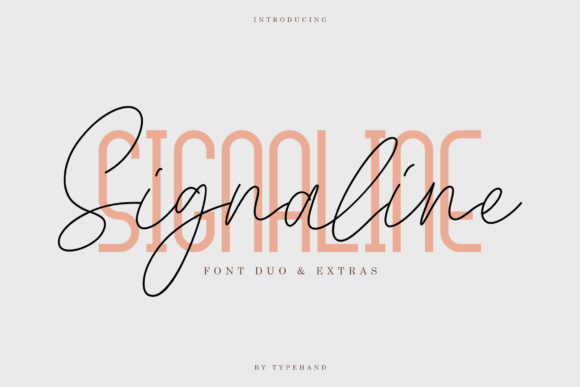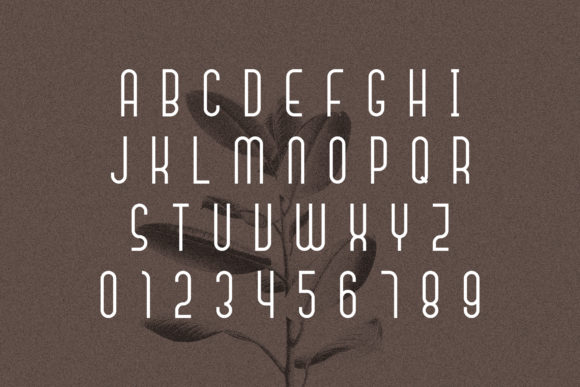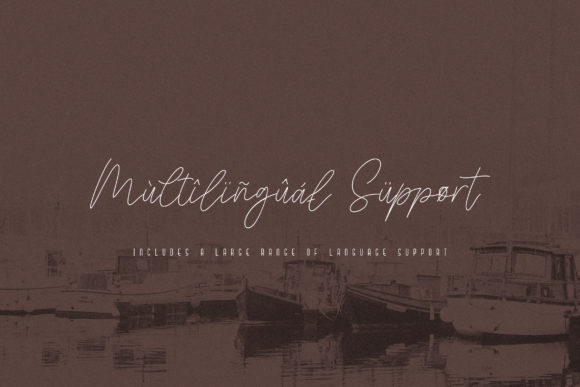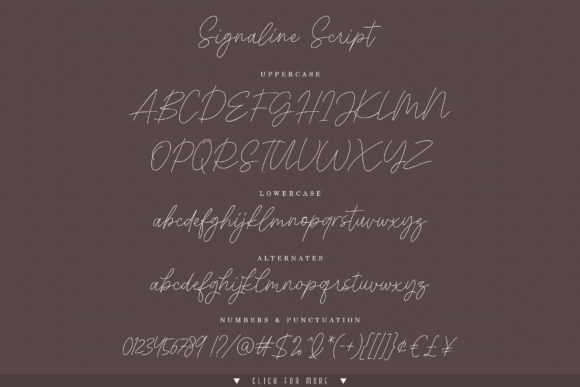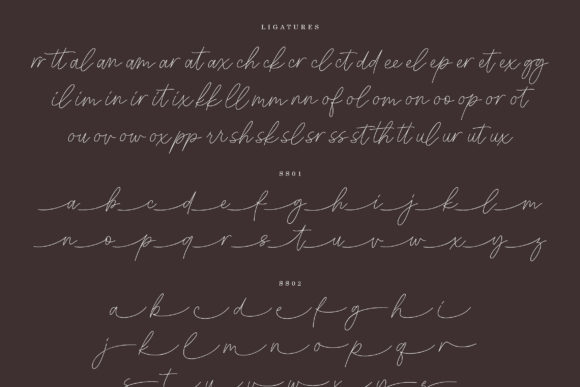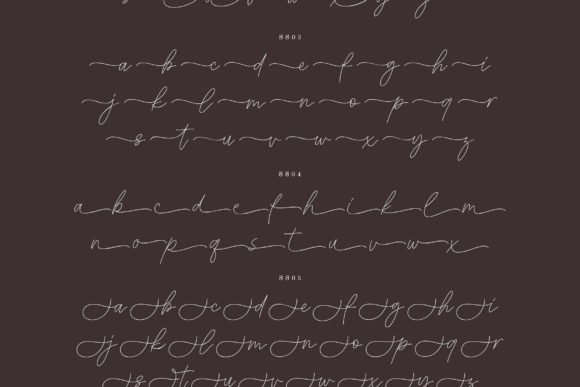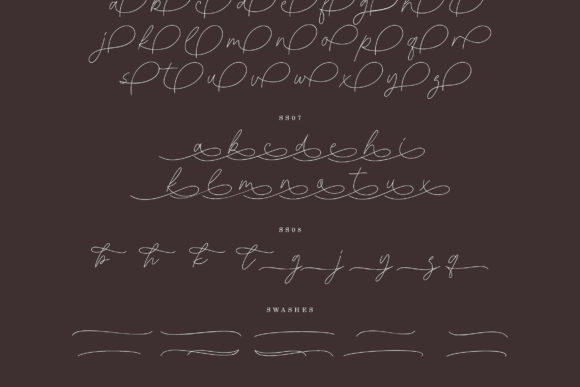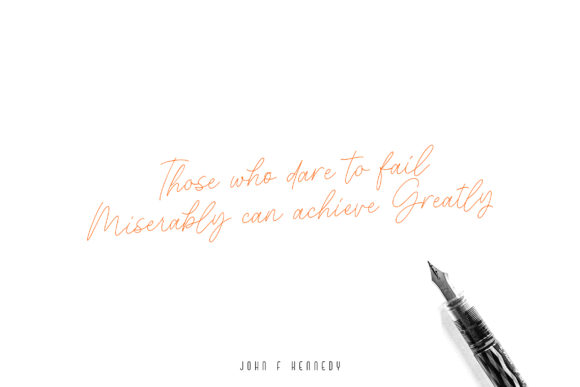
Signaline Duo Font
About Signaline Duo Font
Signaline is a bold and fun font duo with an incredibly authentic vibe. Use this magnificent script to turn any design idea into a true standout!